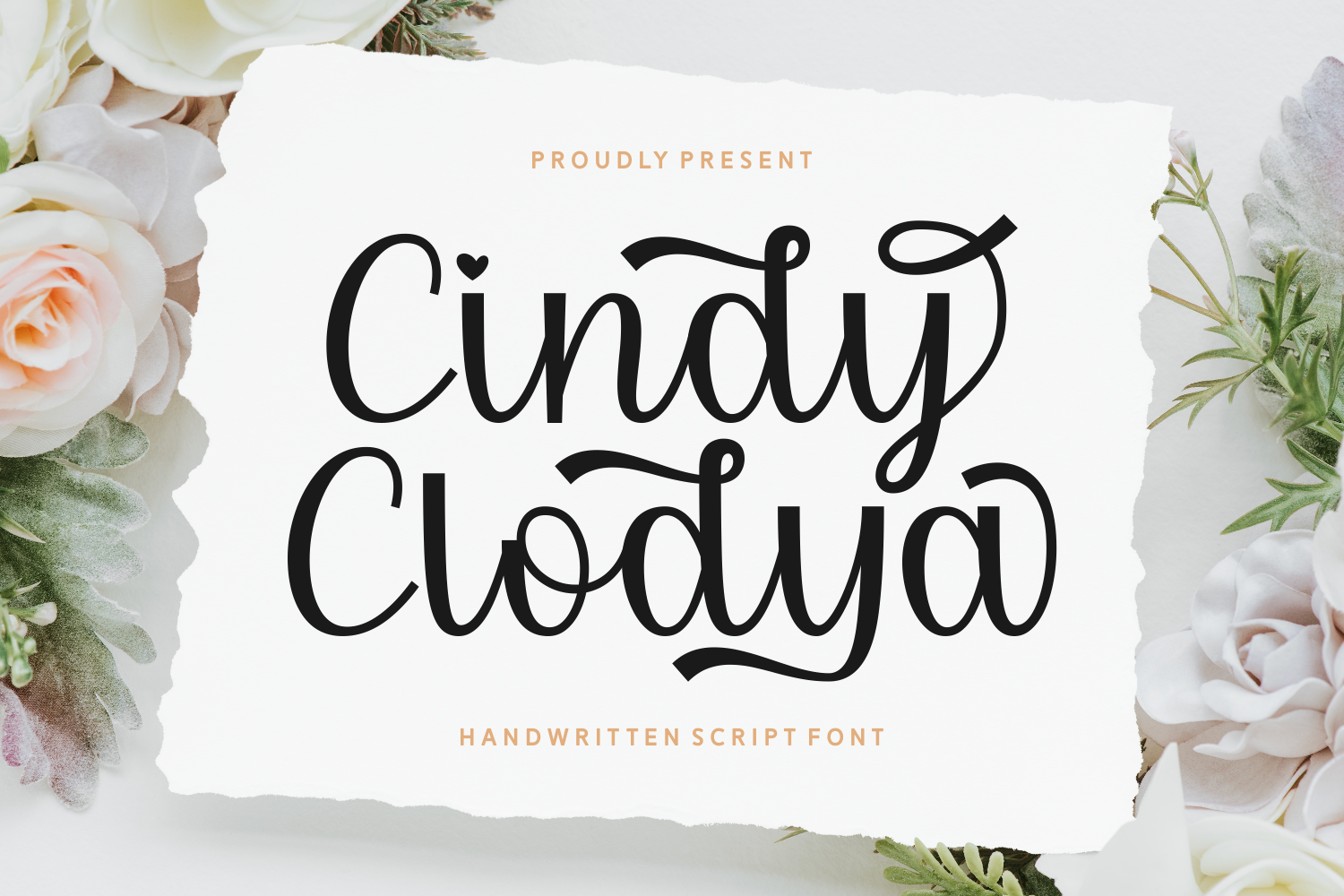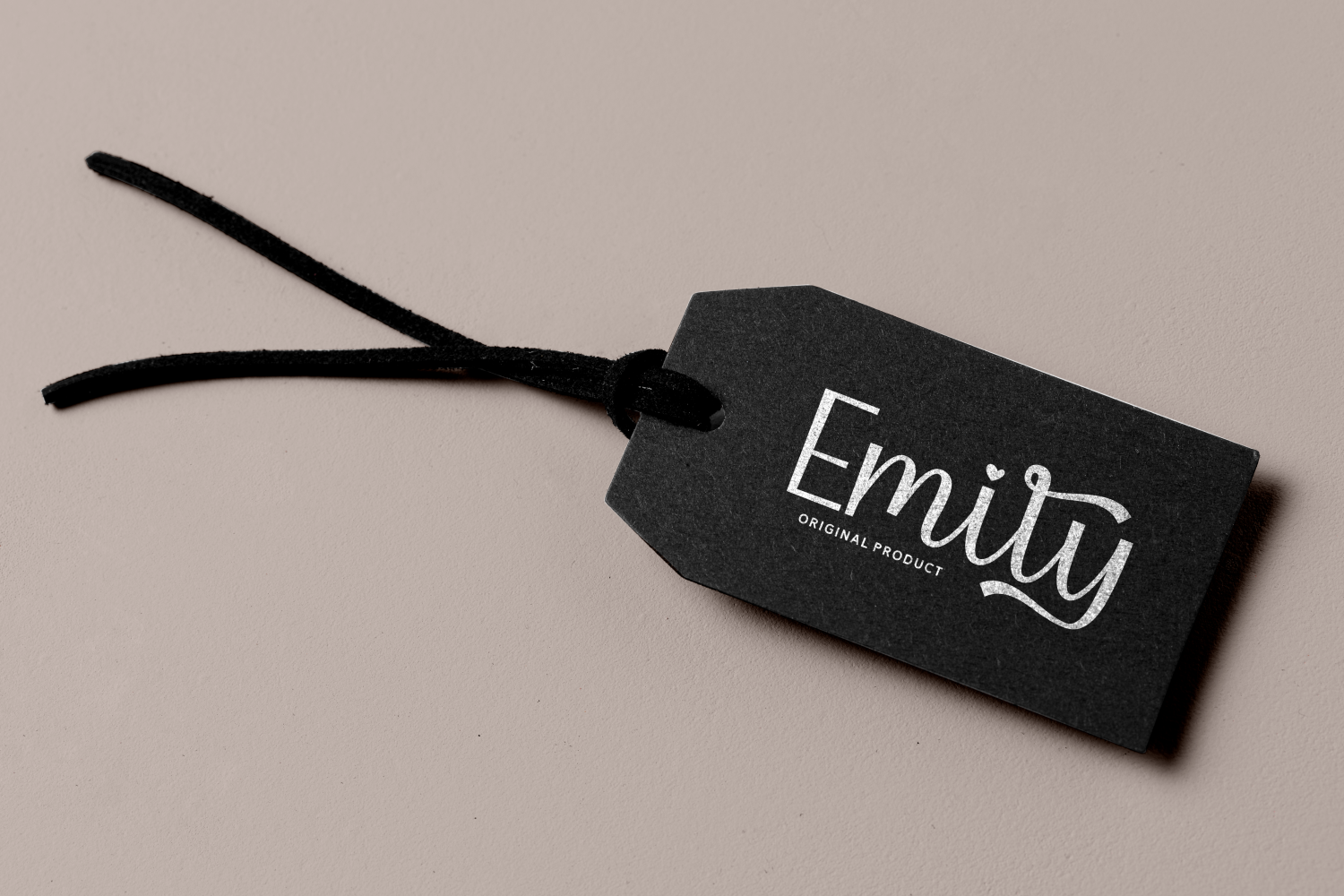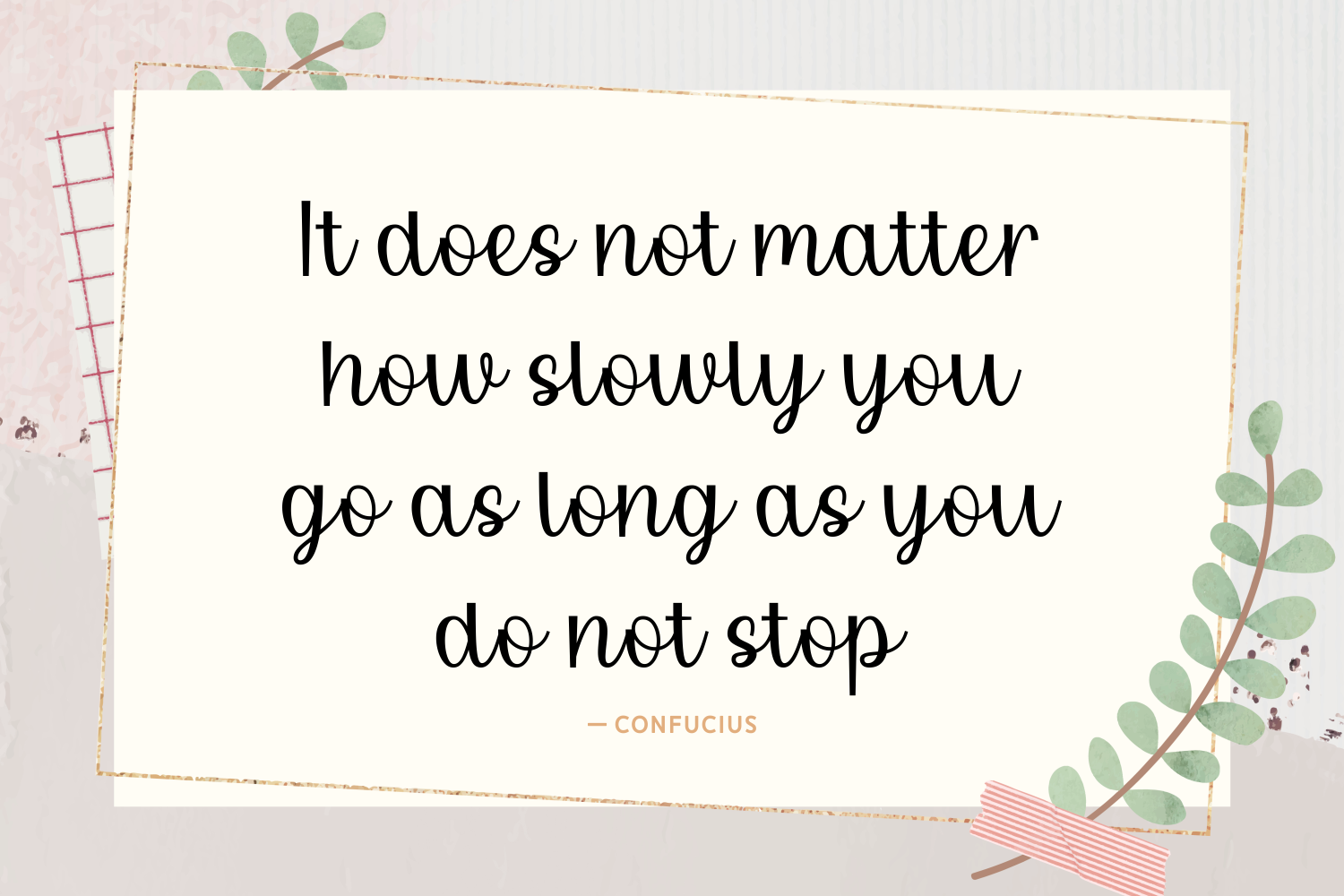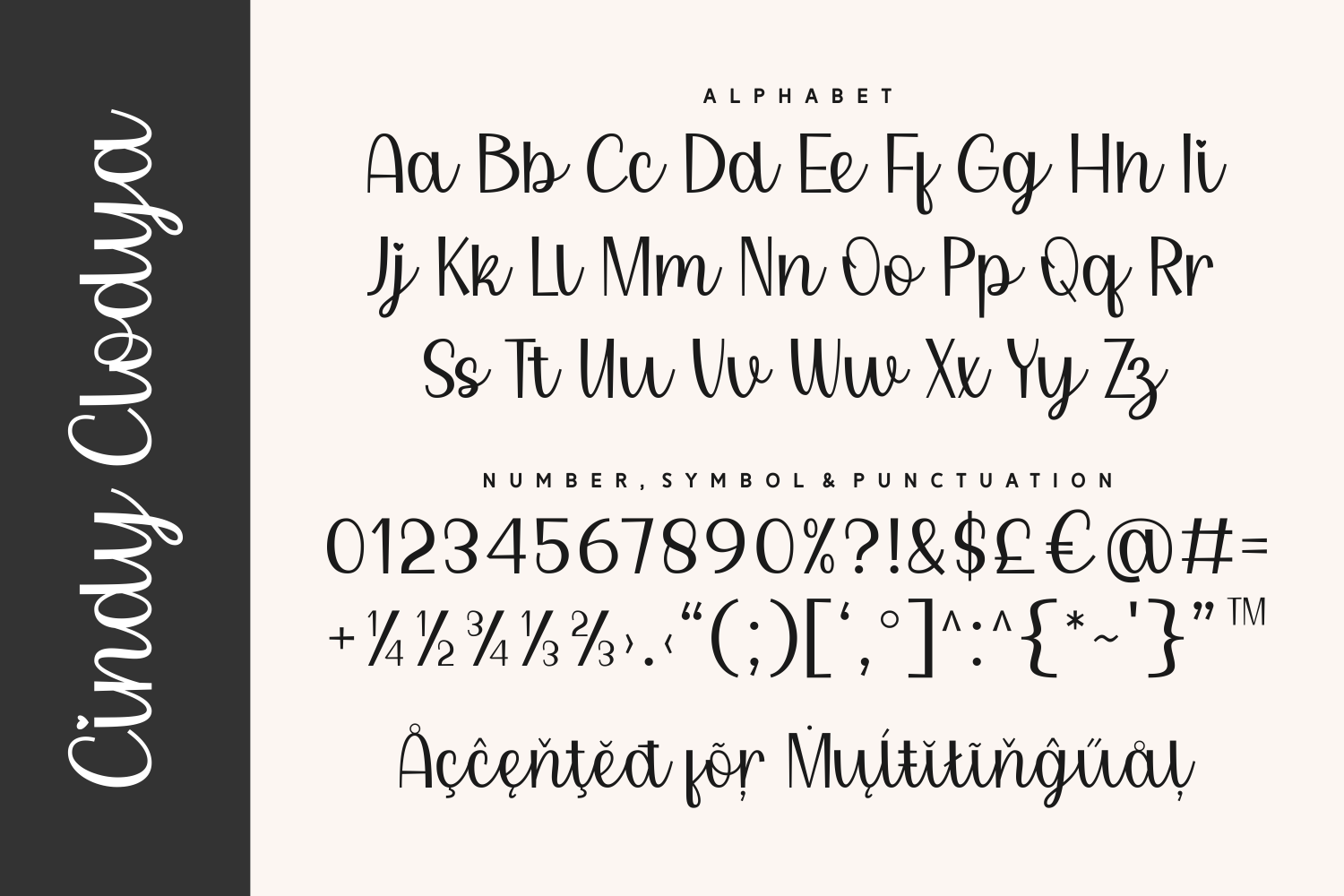
Cindy Clodya is a charming handwritten script font with whimsical flourishes and heart-inspired touches. Its playful loops and soft lines bring a romantic and cheerful energy, perfect for invitations, branding, social media, or anything that needs a personal and delightful feel.